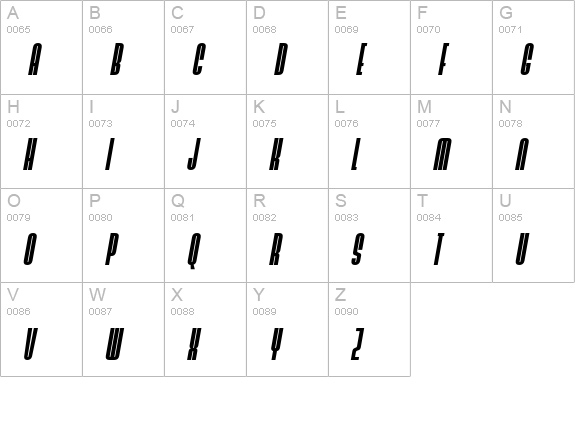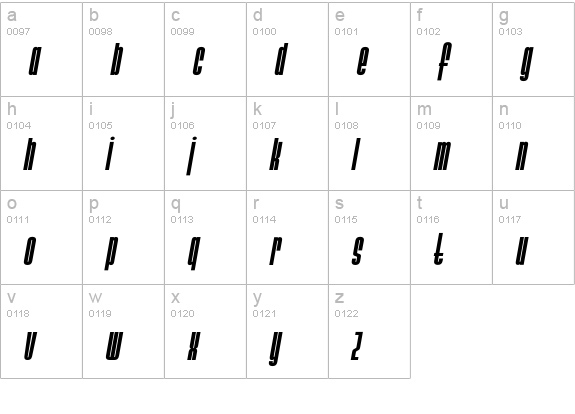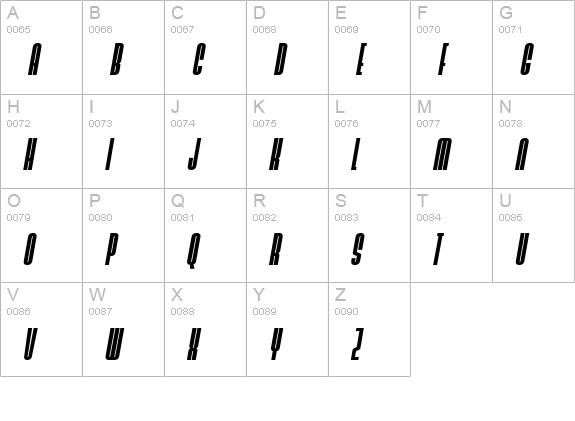
Ainsdale-BoldItalic Font Details
Ainsdale-BoldItalic font is a striking and elegant typeface that exudes sophistication and style. With its bold yet graceful italic design, this font is perfect for adding a touch of luxury to your projects. The Ainsdale-BoldItalic font features strong, thick lines that make a bold statement, while the italicized style adds a touch of flair and sophistication. What makes this font even better is that it is available for free download at FontsMarket.com. This means you can easily access this stunning font and use it in your designs without any cost. Whether you're creating branding materials, invitations, or any other creative project, Ainsdale-BoldItalic font is sure to make a lasting impression with its unique and eye-catching design. Download it today and elevate your designs with this exquisite font.